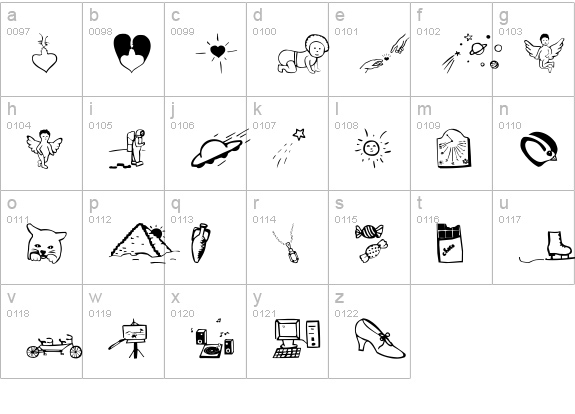
My World Font Details
Introducing the captivating and versatile My World font, a modern typeface that will elevate your designs to new heights. With its sleek lines and elegant curves, My World exudes a sense of sophistication and style that is perfect for a wide range of design projects. Whether you are creating branding materials, invitations, posters, or any other creative endeavor, this font is sure to make a lasting impression. What's even better is that My World font is available for free download at FontsMarket.com. Yes, you read that right - this stunning font can be yours at no cost, allowing you to unleash your creativity without any constraints. Don't miss out on this opportunity to add a touch of elegance to your designs with the My World font - download it today and let your creativity soar!